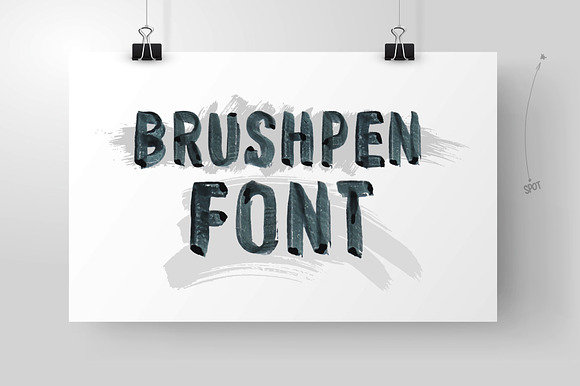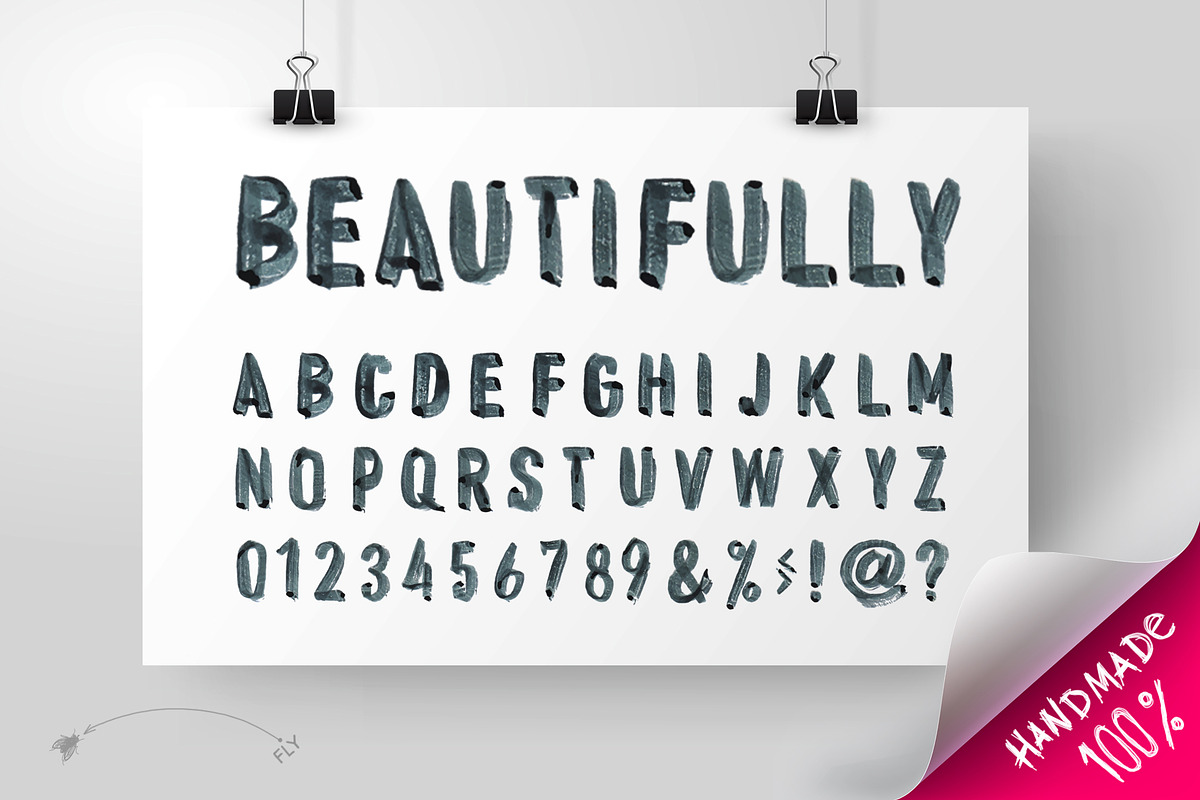
Brushpen Font
Handwritten black watercolor alphabet with numbers and symbols. Drawn with a brush. Vector illustration. Isolated on transparent background
Brushpen Font by Vector photo shop fits naturally into Branding, posters, packaging, typography.